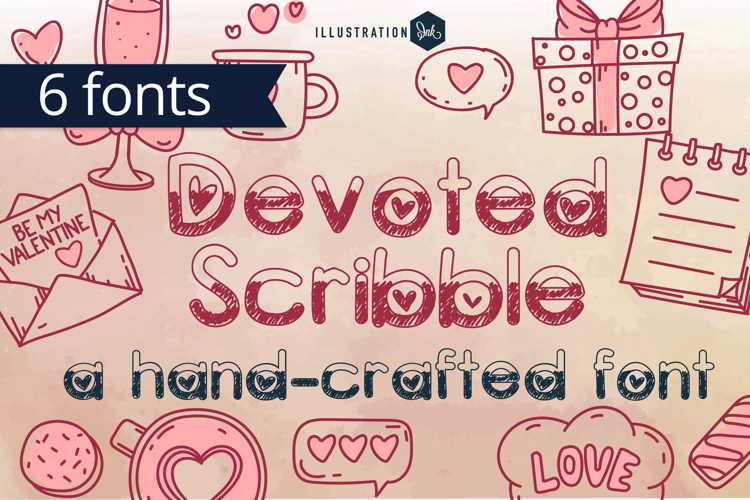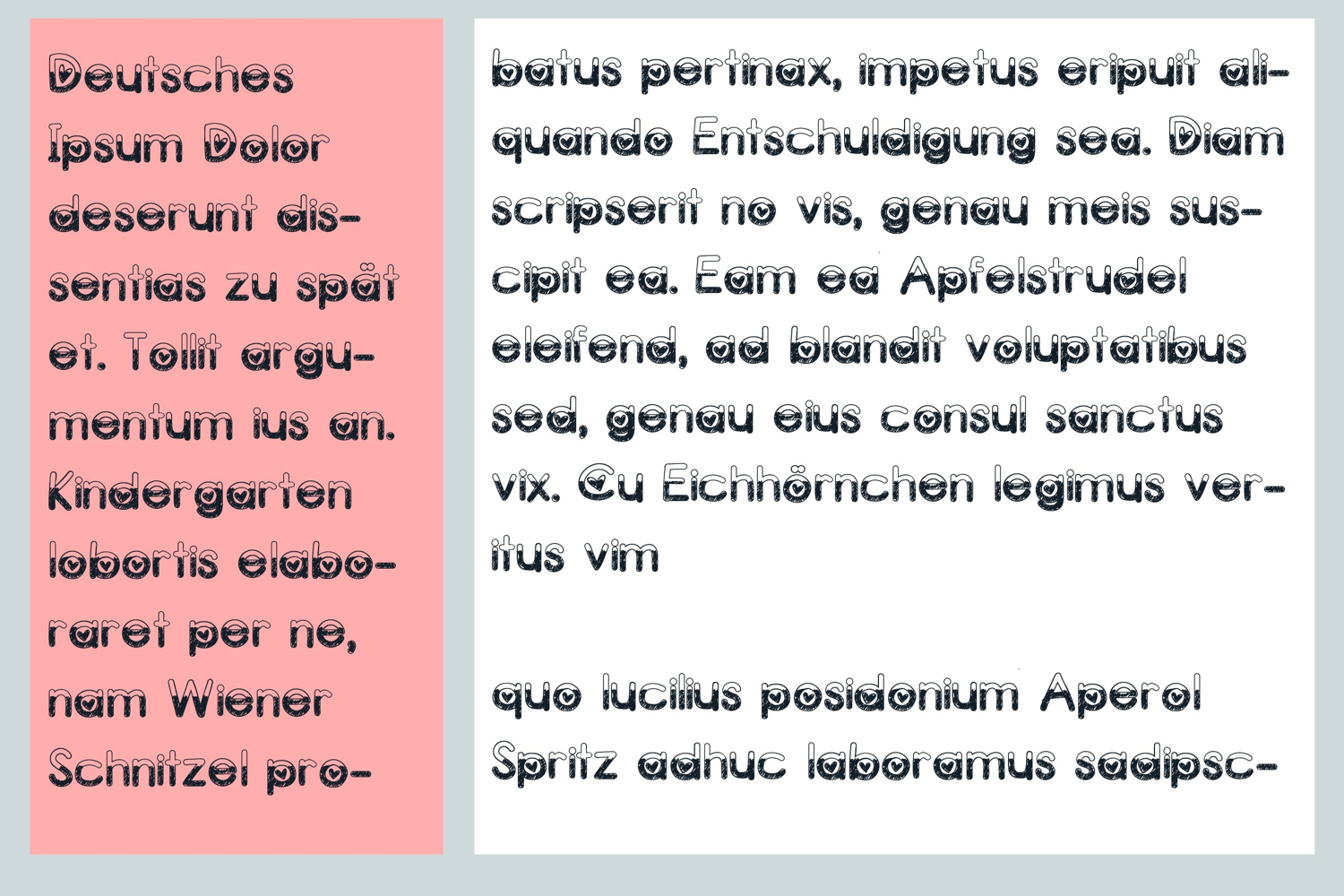
ZP Devoted Scribble Font Family
This hand-crafted font is a whimsical, hand-crafted font of doodles and scribbles and hearts. There are 6 variations included.